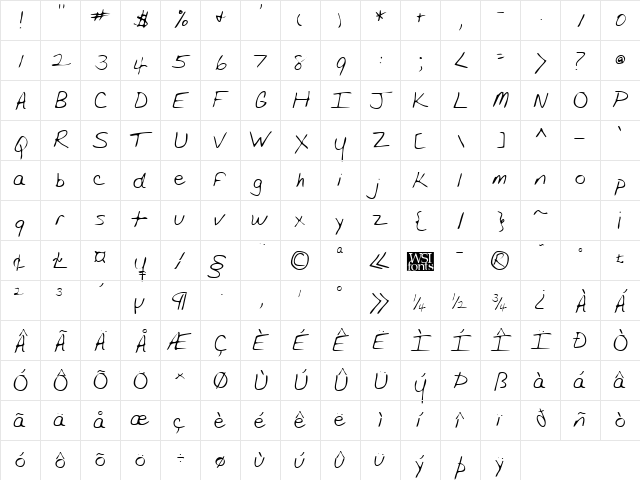
LaurensHand Regular
Design Context for LaurensHand Typeface
LaurensHand flows with the natural rhythm of handwritten lettering, making it ideal for designs that call for warmth and personal expression.
Font Pairing: Combine LaurensHand with a simple geometric sans for maximum contrast — the tension between flowing curves and clean structure is a classic typographic pairing.
Pro Tip: Pair LaurensHand with a clean sans-serif for supporting text. The contrast between fluid script and geometric structure creates an elegant typographic hierarchy.